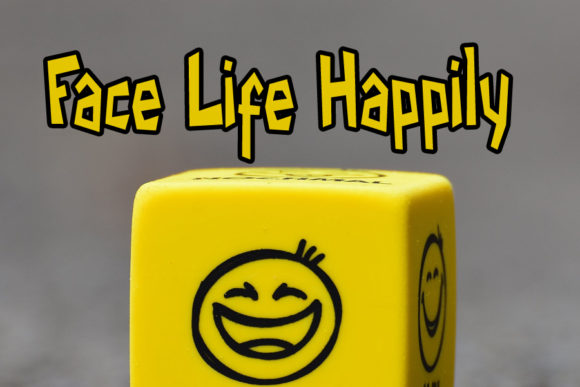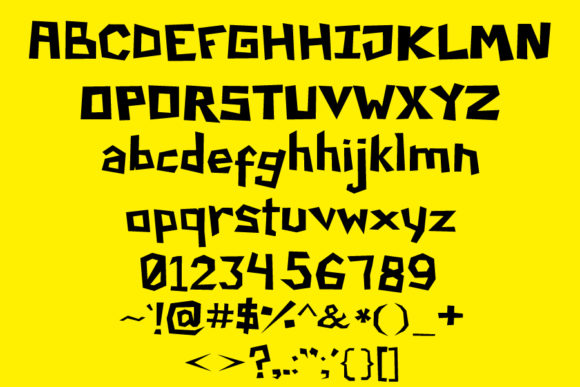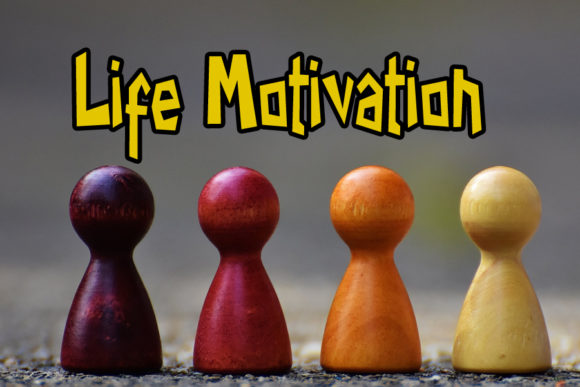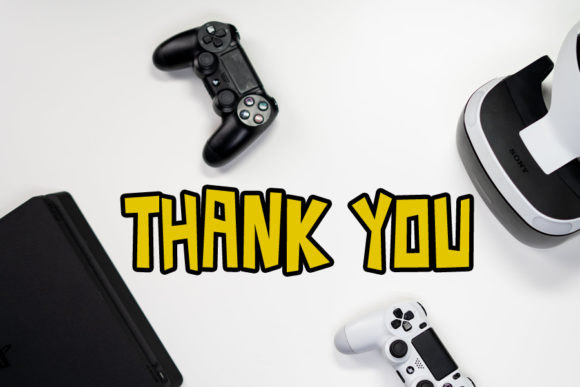
Introducing Game Plan Font: The Ultimate Choice for Fun and Playful Designs
Are you looking for a font that can add a touch of childlike playfulness to your designs? Look no further than Game Plan Font! This cute and fun display font is perfect for designers and crafters who want to create engaging and creative projects for kids and school assignments. In this article, we’ll explore the features and benefits of Game Plan Font, and show you how to get the most out of this versatile and fun font.
What is Game Plan Font?
Game Plan Font is a display font designed to bring a sense of fun and playfulness to your designs. With its childlike charm and carefree spirit, this font is perfect for projects that require a lighthearted and creative touch. Whether you’re working on a kids’ party invitation, a school project, or a craft tutorial, Game Plan Font is the perfect choice.
Key Features of Game Plan Font
- Cute and Fun Design: Game Plan Font features a playful and whimsical design that’s sure to delight kids and adults alike.
- Childlike Playfulness: This font’s childlike charm makes it perfect for projects that require a sense of innocence and wonder.
- Display Font: Game Plan Font is designed as a display font, making it perfect for headlines, titles, and other prominent text elements.
- Easy to Read: Despite its playful design, Game Plan Font is easy to read, making it perfect for both print and digital projects.
Benefits of Using Game Plan Font
So why choose Game Plan Font for your next project? Here are just a few benefits of using this fun and versatile font:
- Adds a Touch of Whimsy: Game Plan Font adds a touch of whimsy and playfulness to your designs, making them more engaging and fun.
- Perfect for Kids’ Projects: This font is perfect for kids’ party invitations, craft tutorials, and other projects that require a childlike charm.
- Versatile: Game Plan Font can be used for a wide range of projects, from school assignments to craft tutorials and more.
How to Use Game Plan Font
Using Game Plan Font is easy! Here are a few tips to get you started:
- Pair with Other Fonts: Pair Game Plan Font with other fonts to create a unique and interesting design.
- Use for Headlines: Use Game Plan Font for headlines and titles to add a touch of whimsy and playfulness.
- Add Colors and Graphics: Add colors and graphics to your design to make it more engaging and fun.
Here are a few tips and tricks for designers and crafters who want to get the most out of Game Plan Font:
- Experiment with Different Colors: Experiment with different colors and color combinations to find the perfect look for your project.
- Add Texture and Patterns: Add texture and patterns to your design to make it more interesting and engaging.
- Use for Digital Projects: Use Game Plan Font for digital projects, such as social media graphics and blog posts, to add a touch of whimsy and playfulness.
In conclusion, Game Plan Font is a fun and versatile font that’s perfect for designers and crafters who want to add a touch of childlike playfulness to their projects. With its cute and fun design, easy readability, and versatility, this font is perfect for a wide range of projects, from kids’ party invitations to school assignments and more. So why wait? Download Game Plan Font today and start creating fun and engaging projects that will delight kids and adults alike!